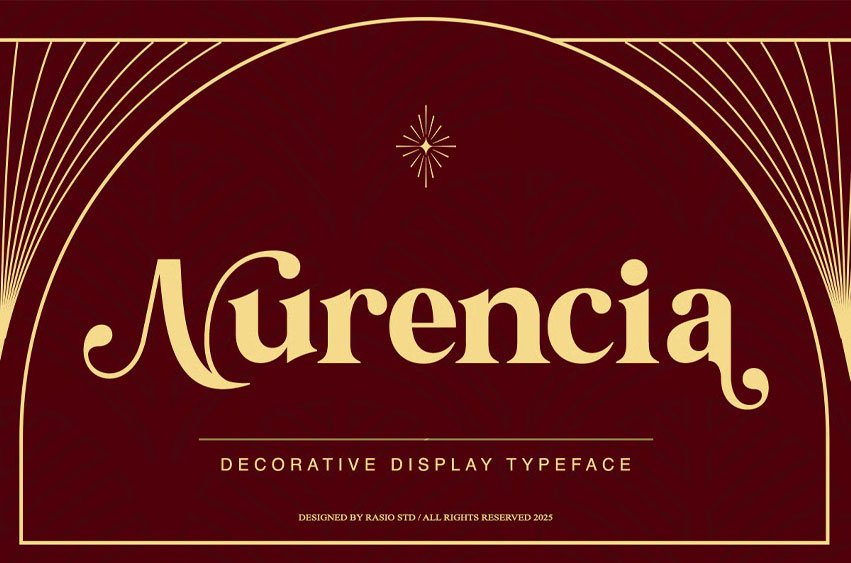
Nurencia Decorative Font is a decorative typeface with a sophisticated decorative flair, perfect for high-end branding and premium editorial design. Featuring refined letterforms, stylish ligatures, and high contrast strokes, this font adds elegance and visual impact to any project. It supports both uppercase and lowercase characters, numerals, and a wide range of punctuation marks. Designed to elevate fashion lookbooks, beauty packaging, logo design, and editorial layouts, Nurencia offers timeless sophistication for modern creatives.